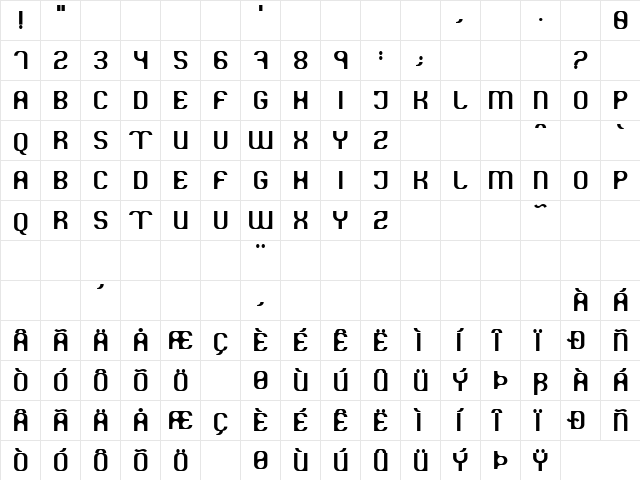
Kryogenic Regular
Design Context for Kryogenic Typeface
Kryogenic offers clean, dependable letterforms without strong stylistic allegiance, making it a practical choice for designers who need flexibility.